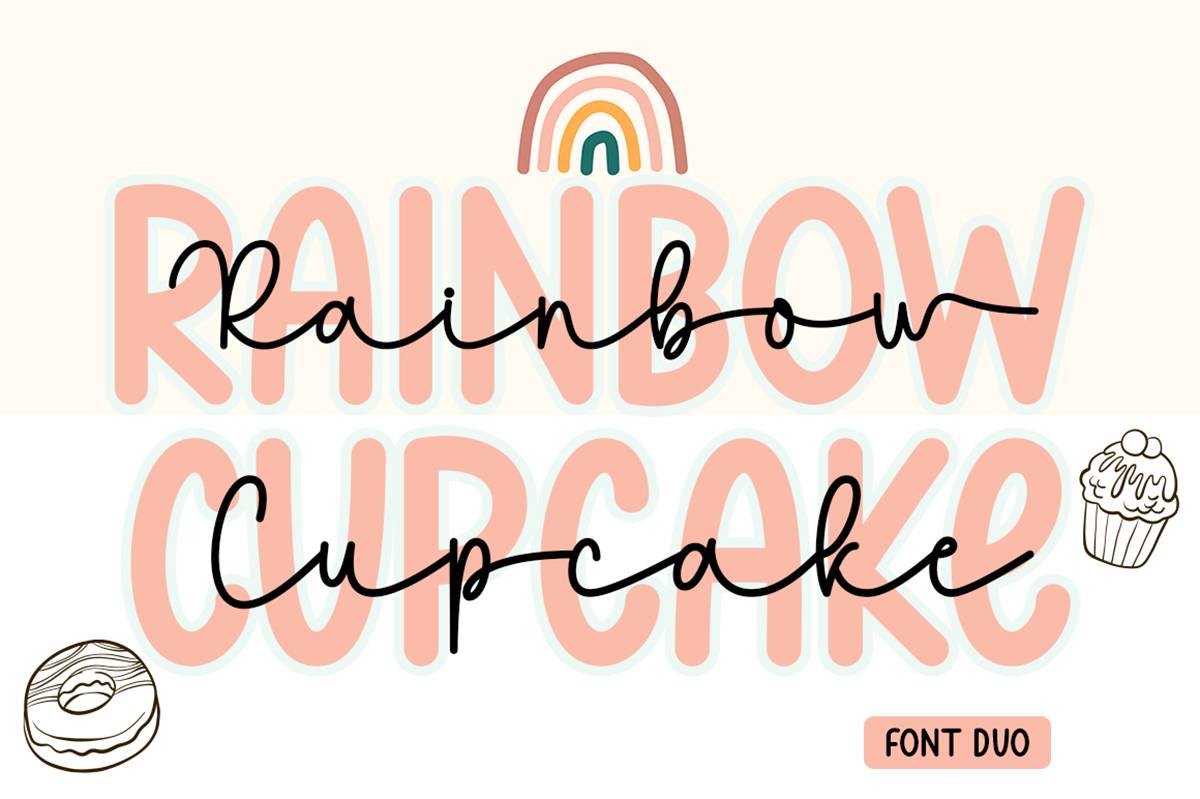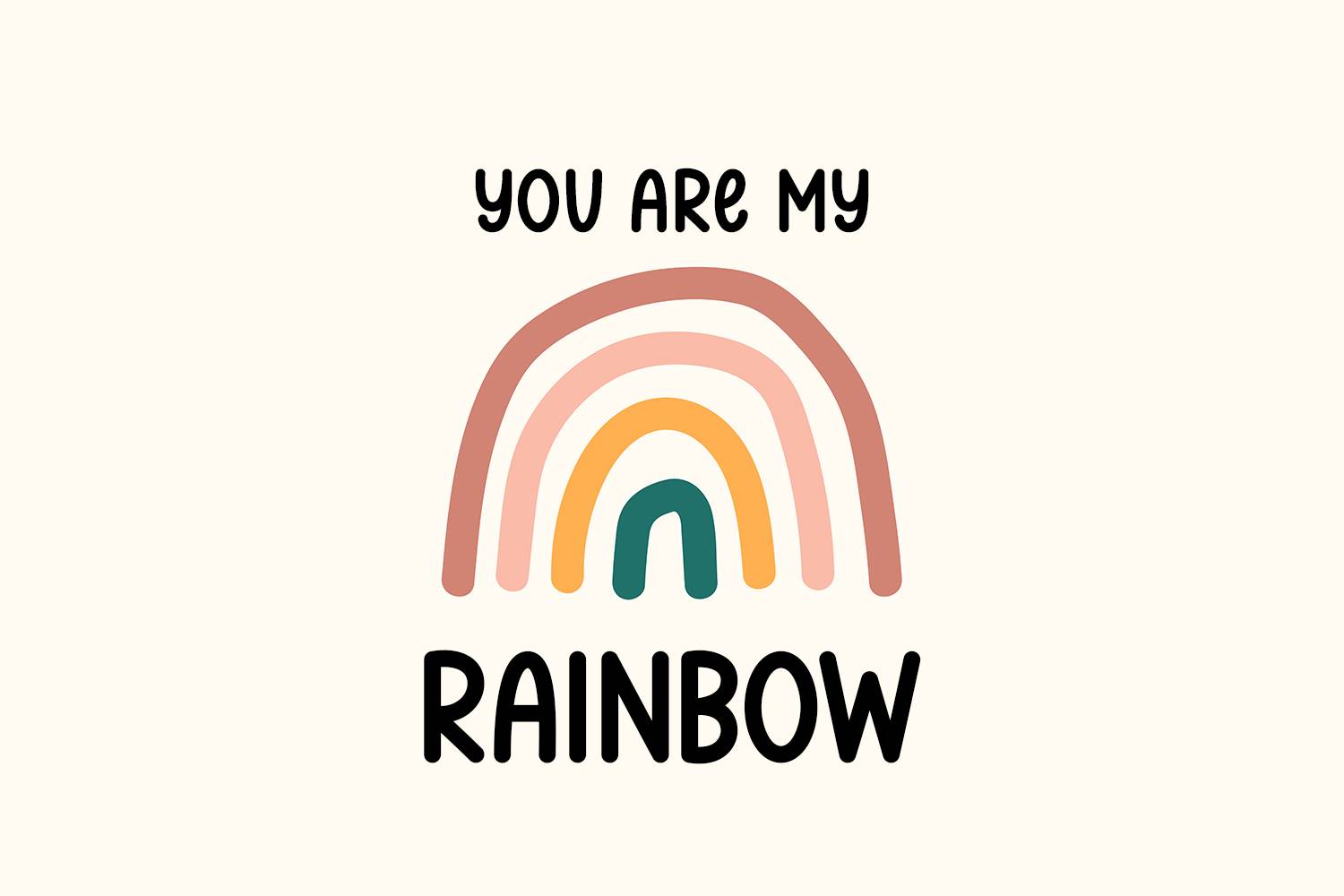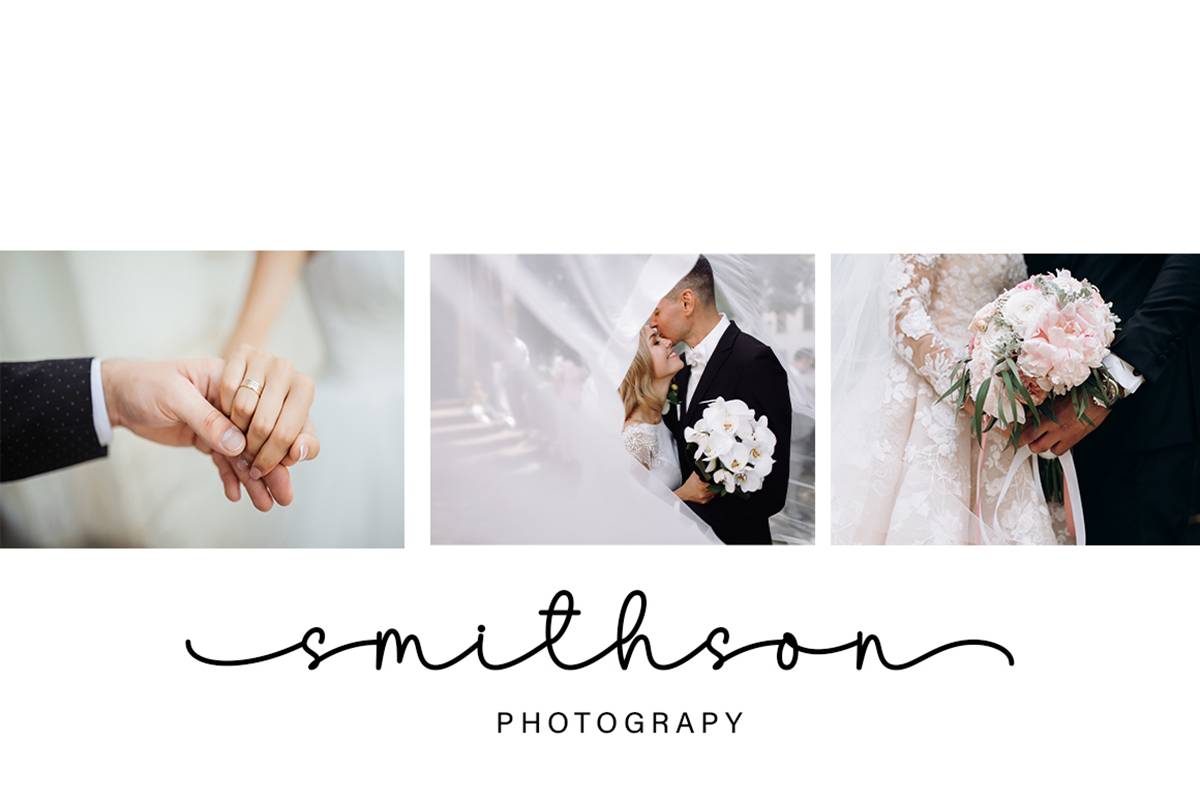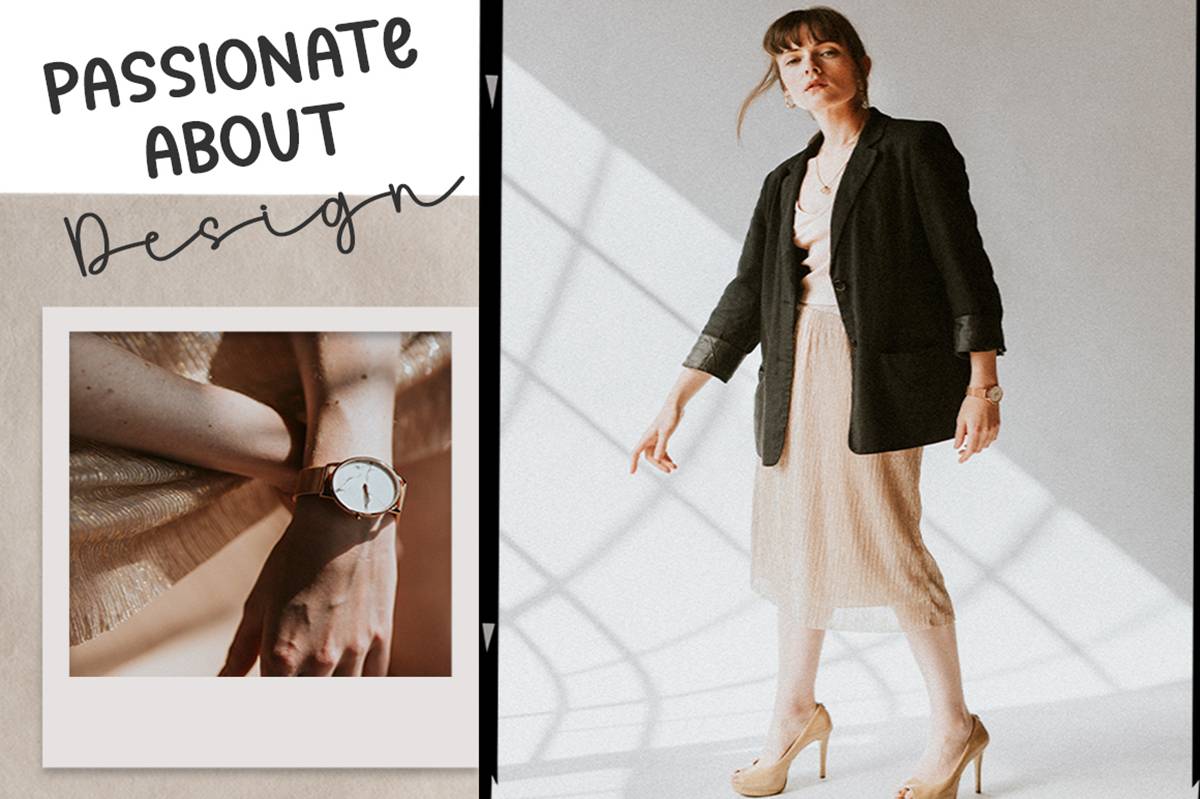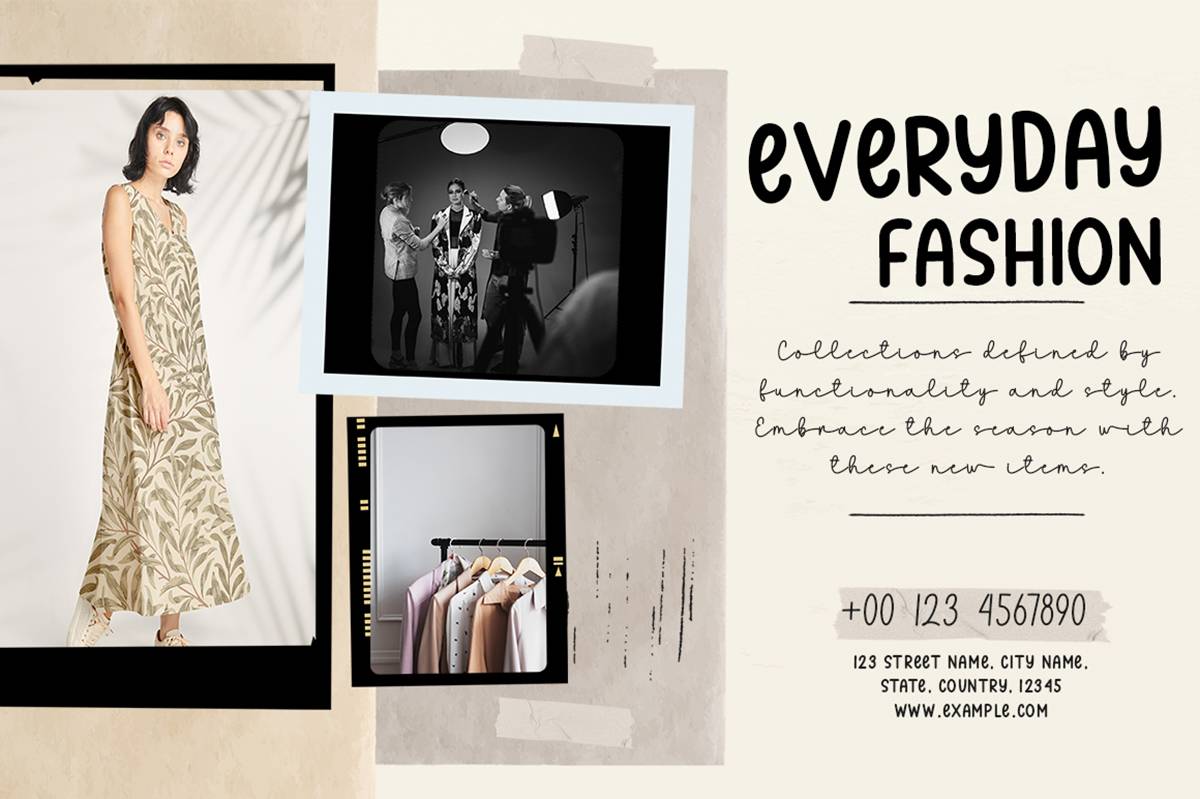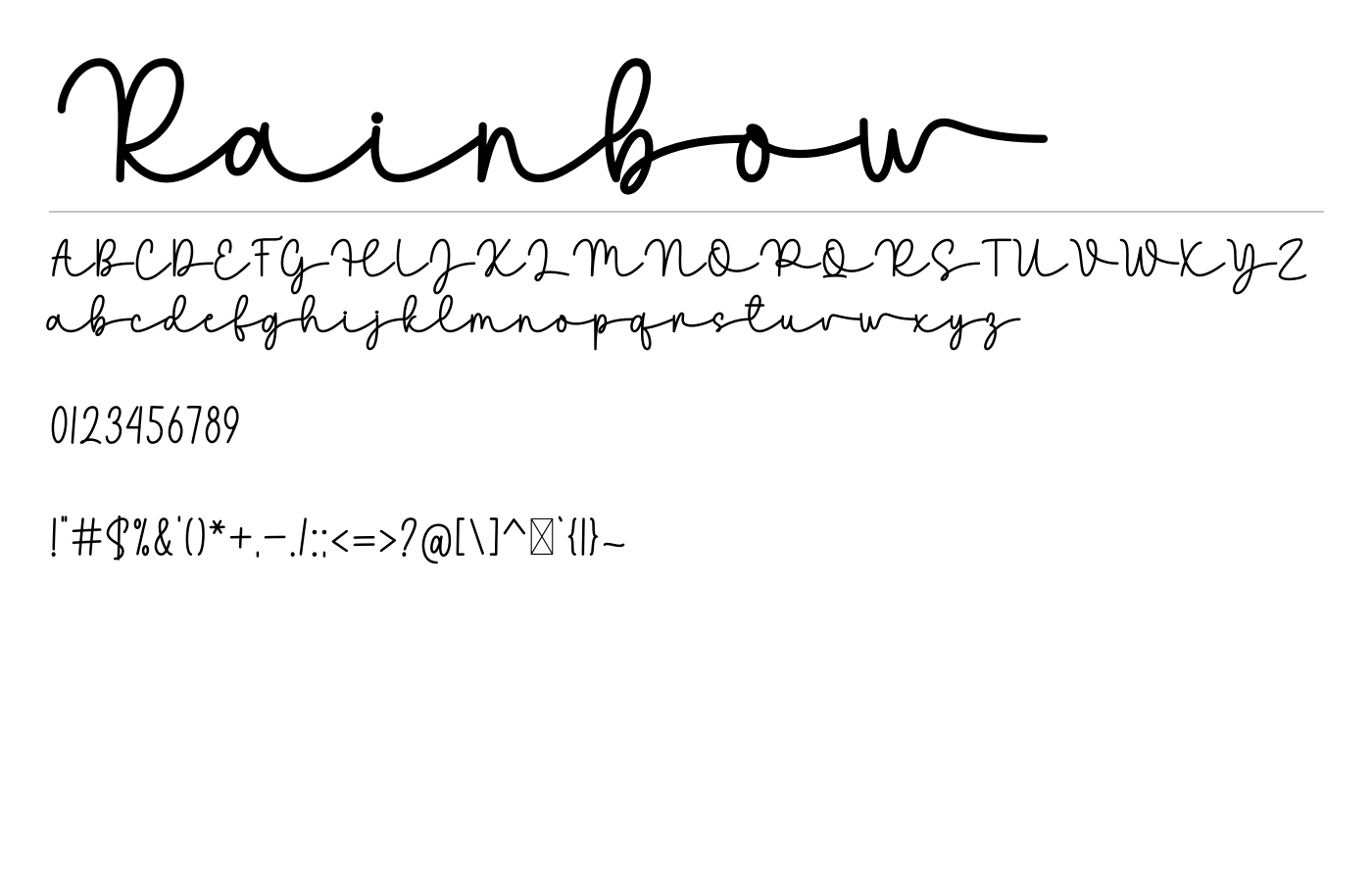
Rainbow Cupcake is a playful, delicate handwritten script font with a light, airy feel created by its thin, fluid strokes and tall x-height. Its smooth, casual letterforms with unique loops give it a friendly and approachable personality, making it ideal for children’s designs, invitations, or creative branding. This font works best for headlines, logos, or decorative text where a personal, whimsical touch is desired.
Rainbow Cupcake Font
About Rainbow Cupcake Font
| Font family | Rainbow Cupcake Font |
| Designer | Wahyudi |